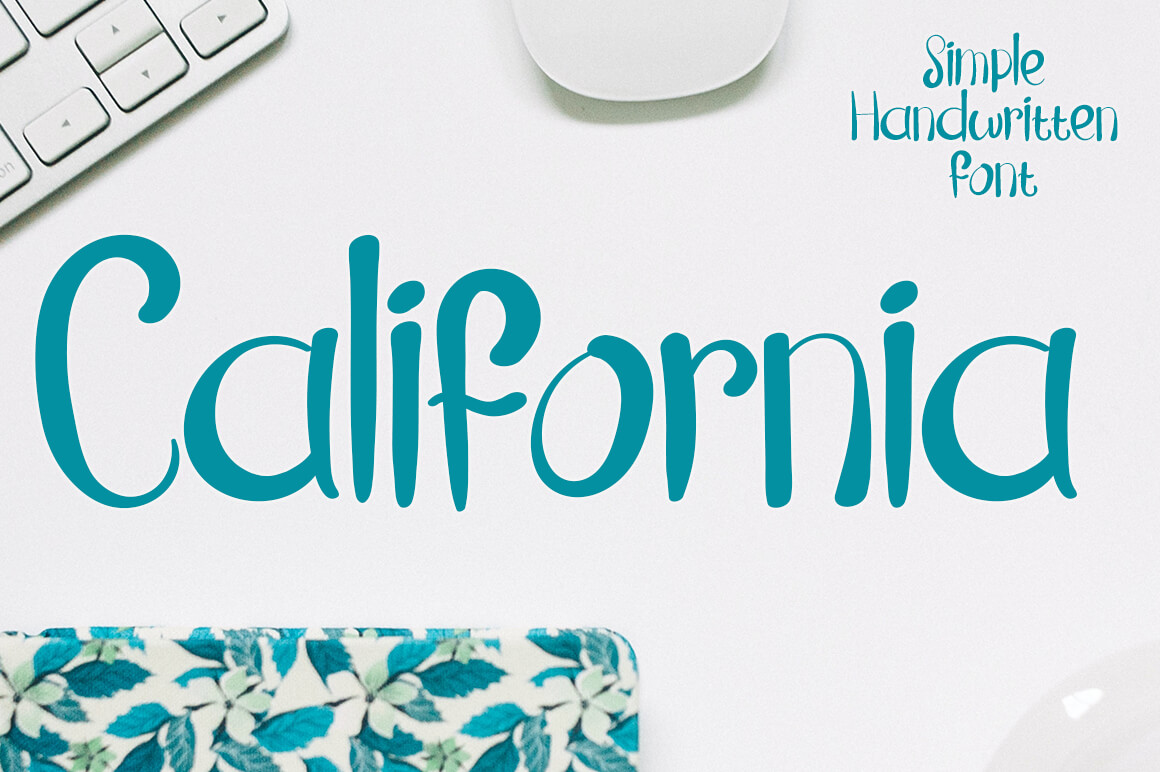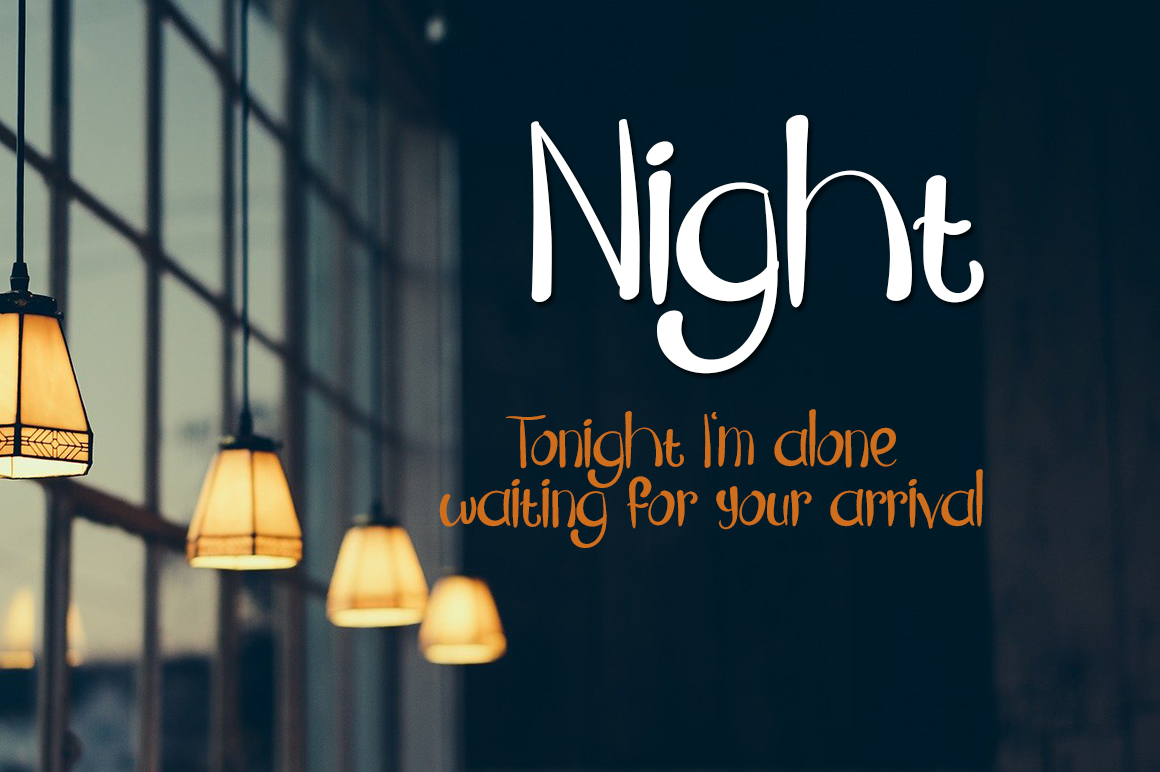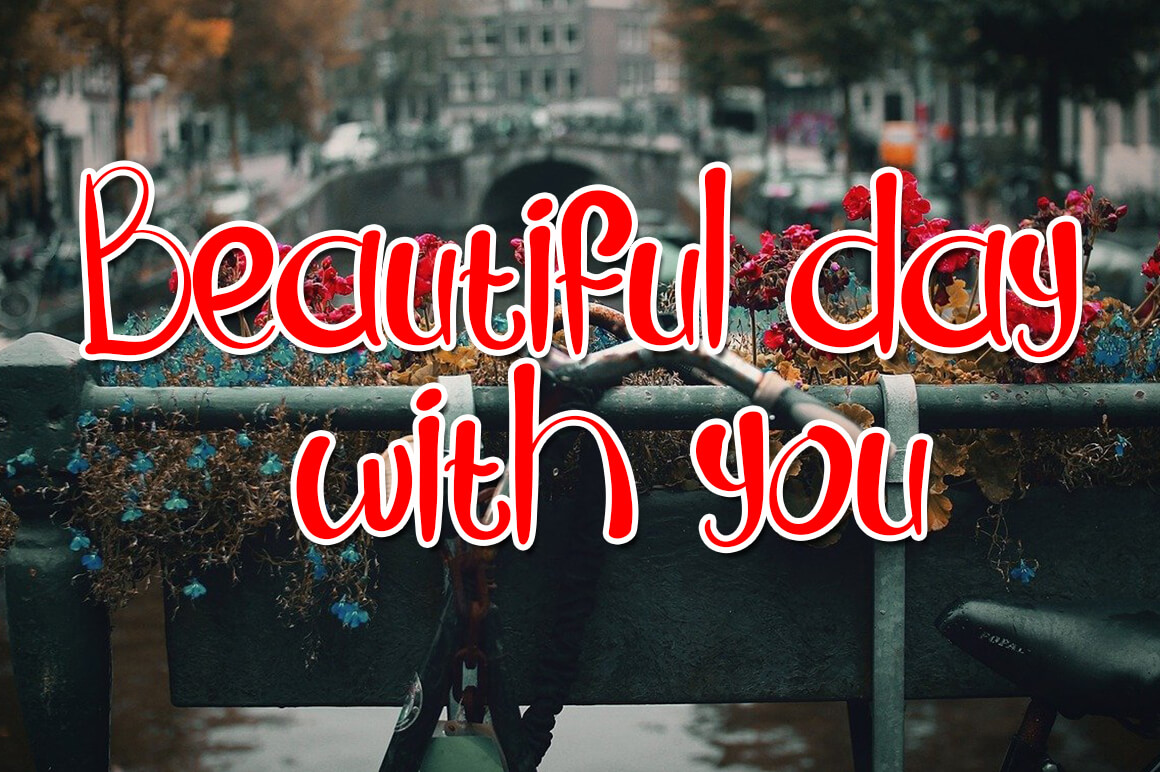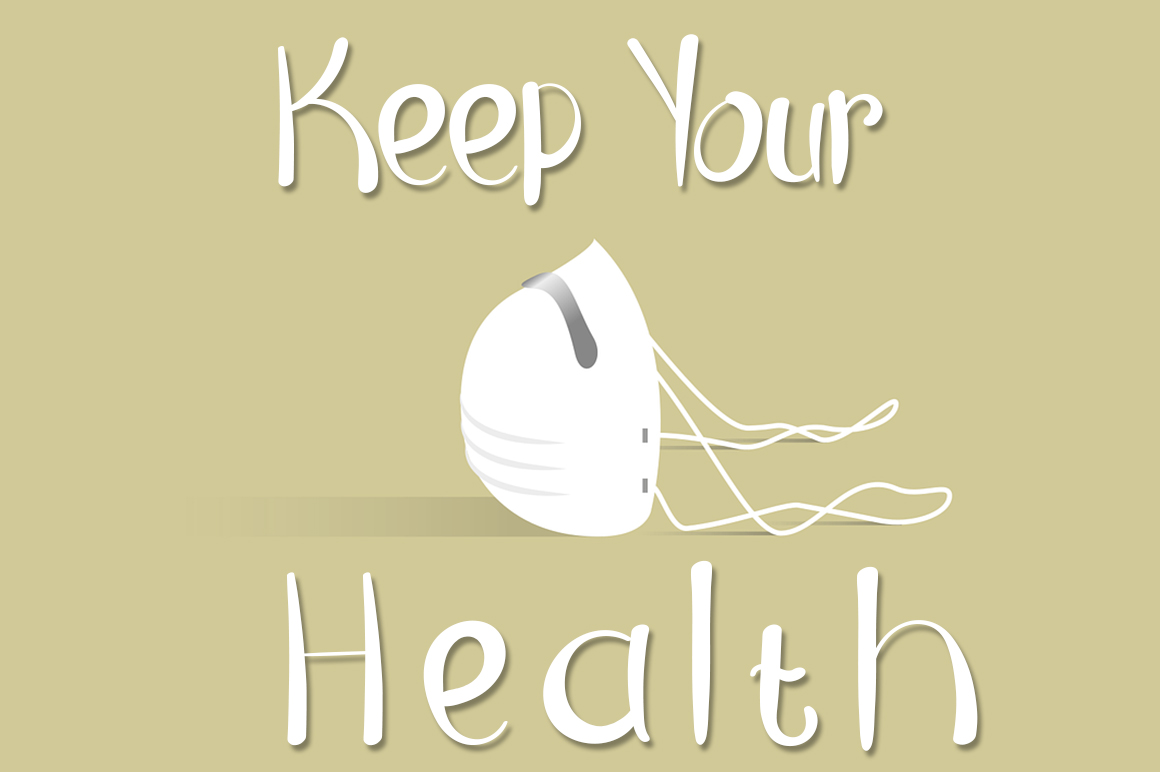
California Script Typeface
It’s a remarkably neat and tidy handwritten font. Its sleek style makes this typeface the perfect choice for magazine titles, social media posts, banners, business cards, marketing materials, and so much more!